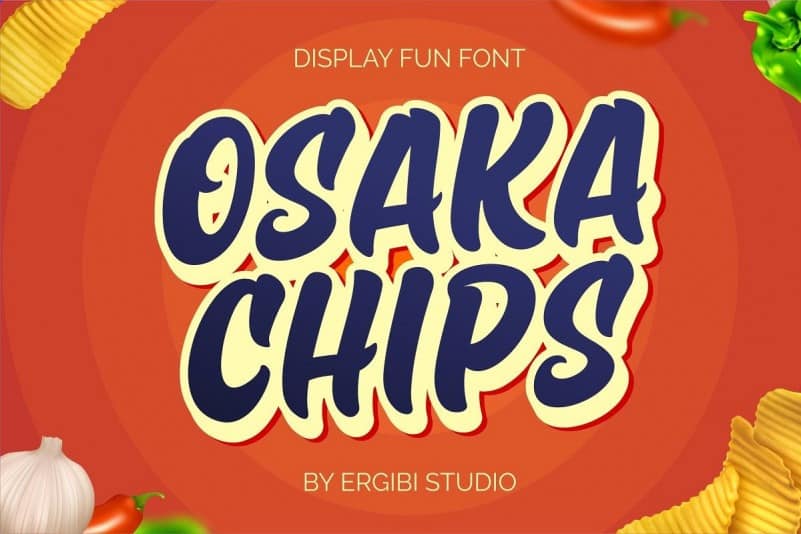
Osaka Chips – Fun Font
Osaka Chips Fun Font is a font display that is made by hand. This font is specially designed in a fun style. It is design and shared by ErgibiStudio.
All unique uppercase fonts equipped with extrude effects make this font look more attractive, very suitable in a variety of funny needs, such as chips packaging, snack packaging that looks funny, food packaging, quotes, needs of school children, etc.